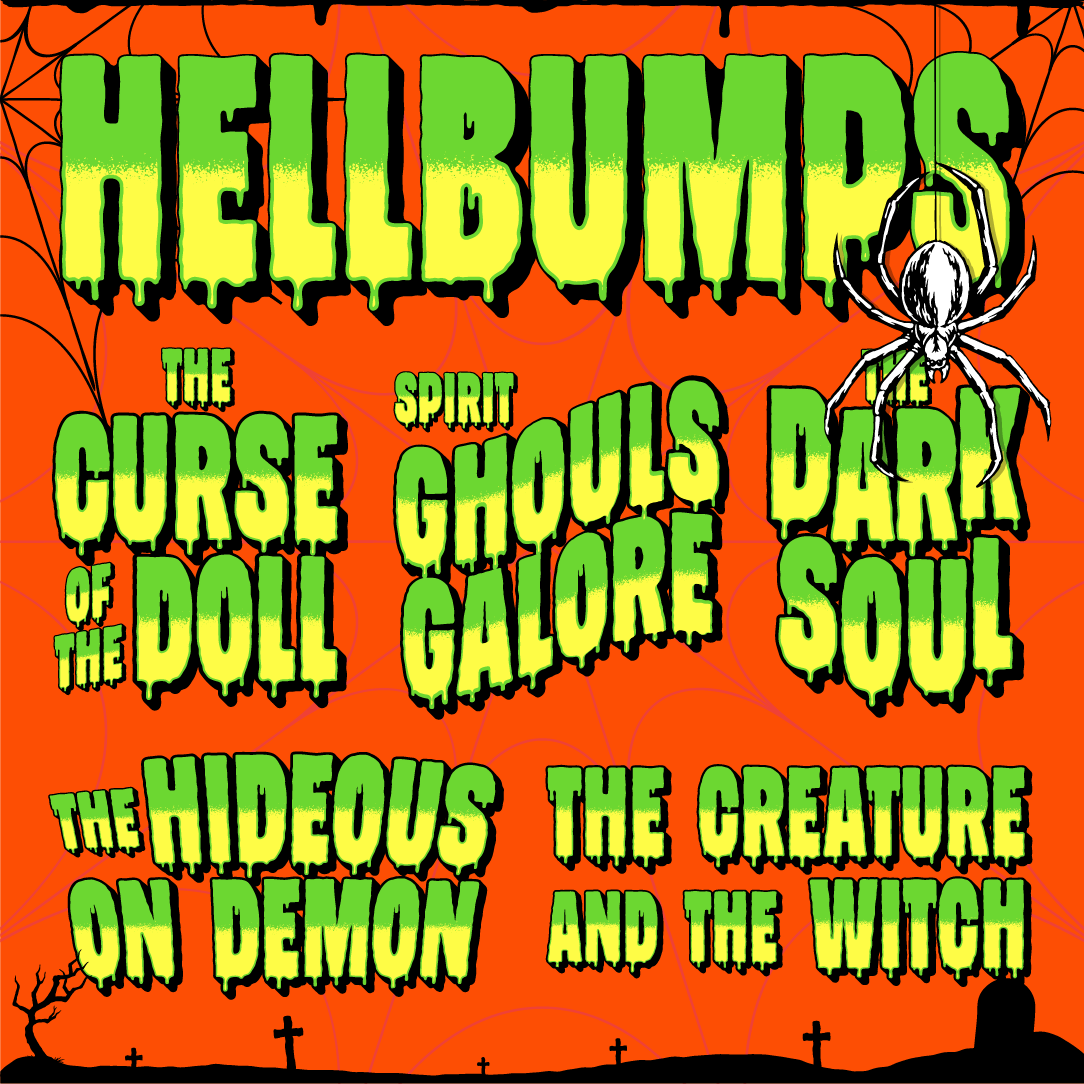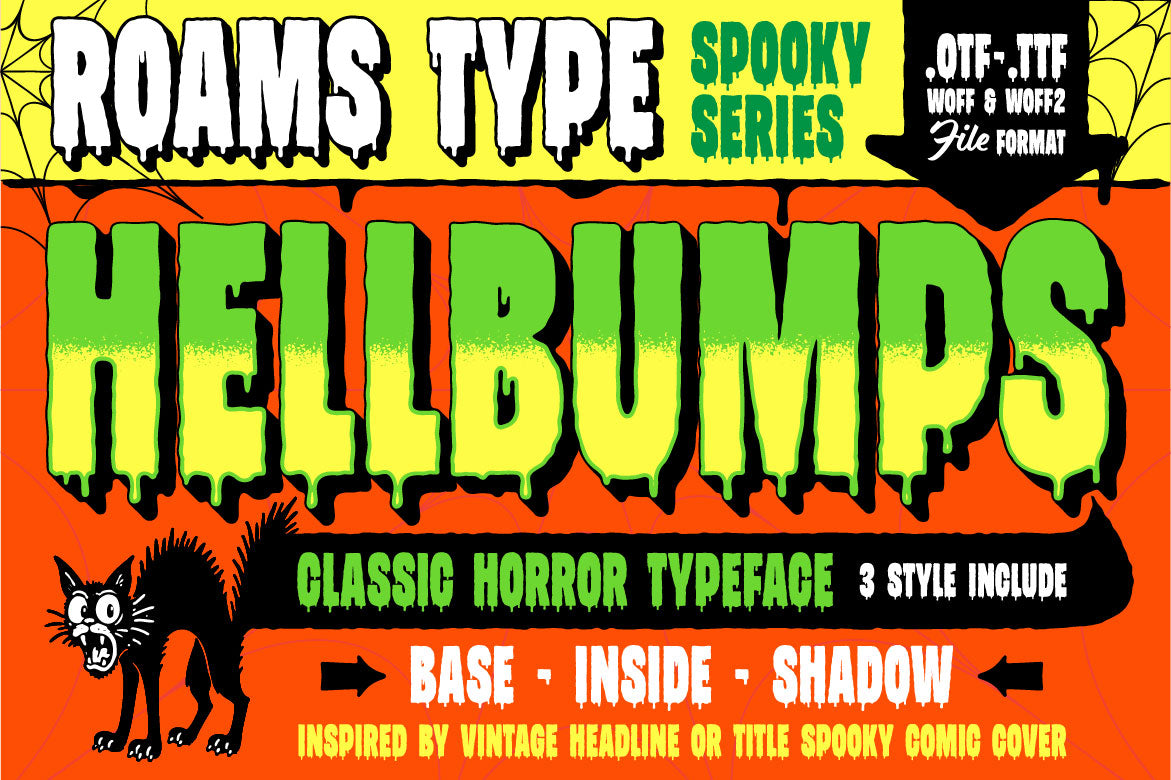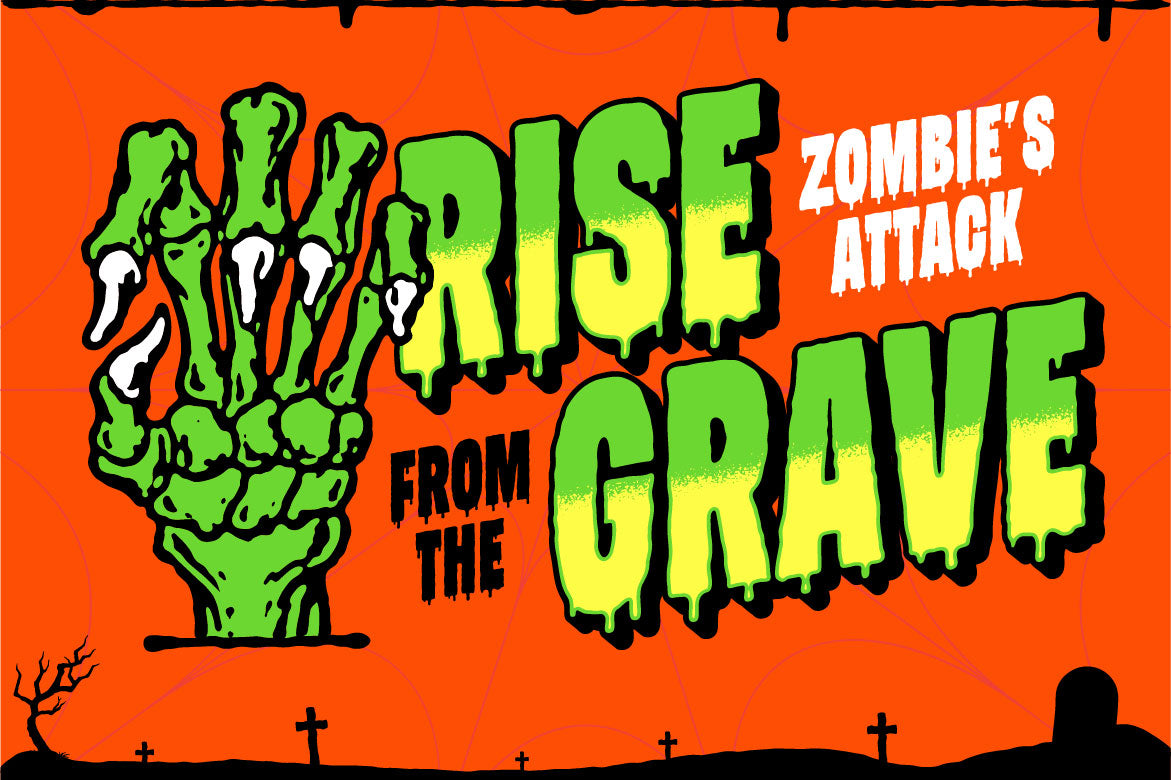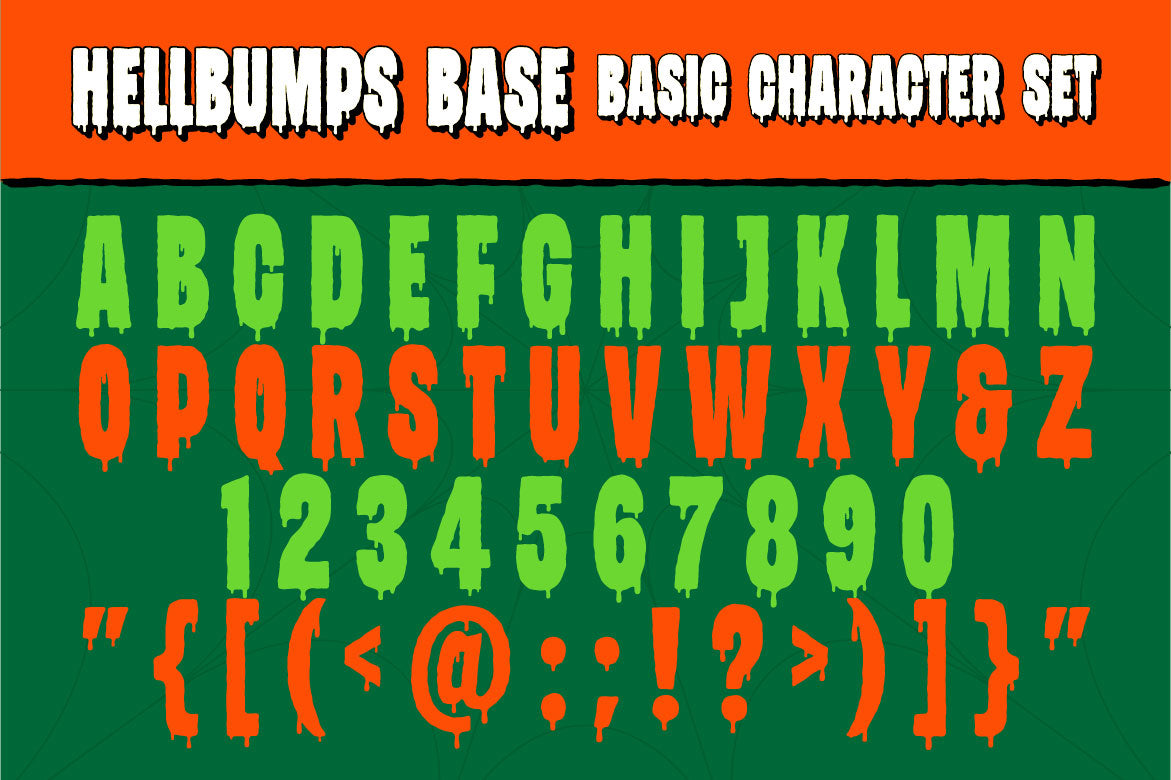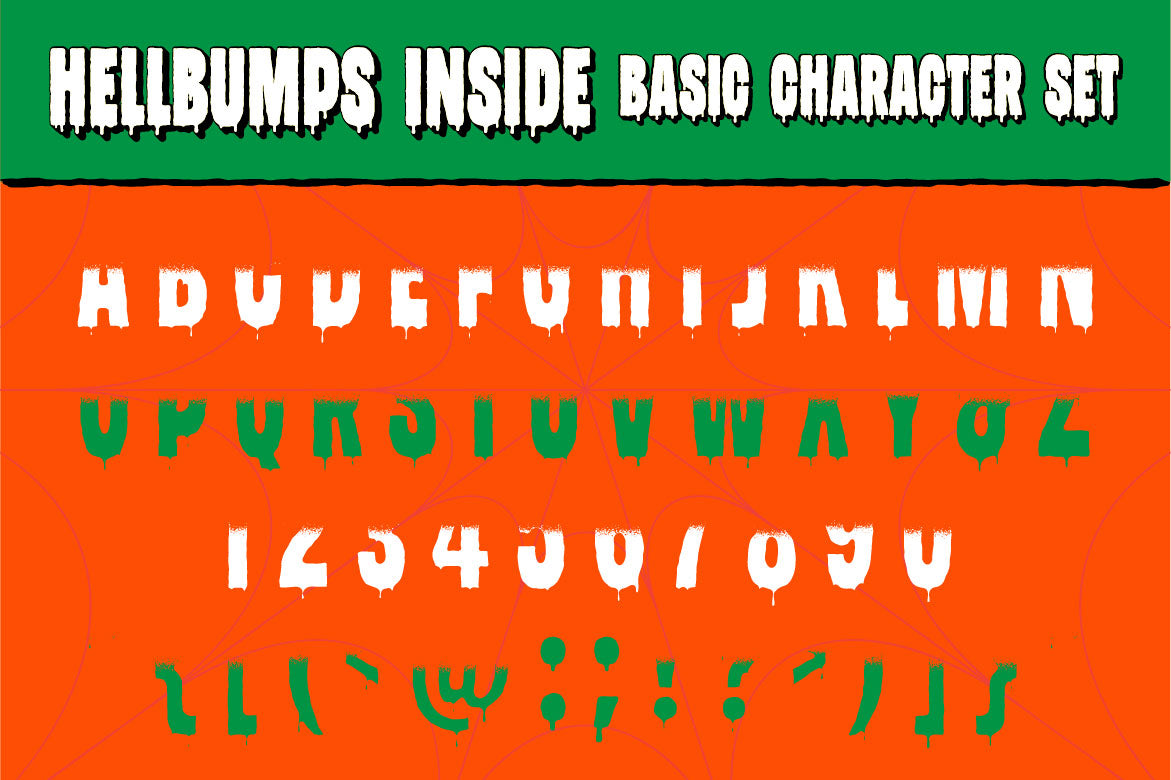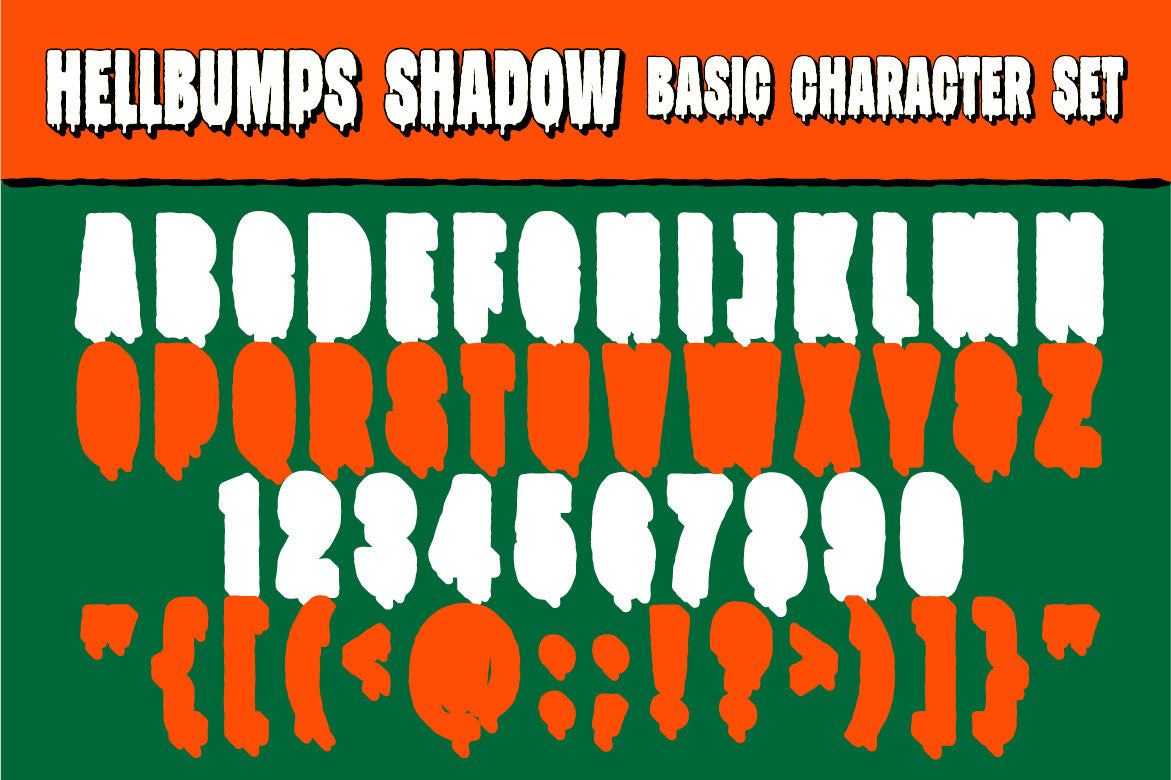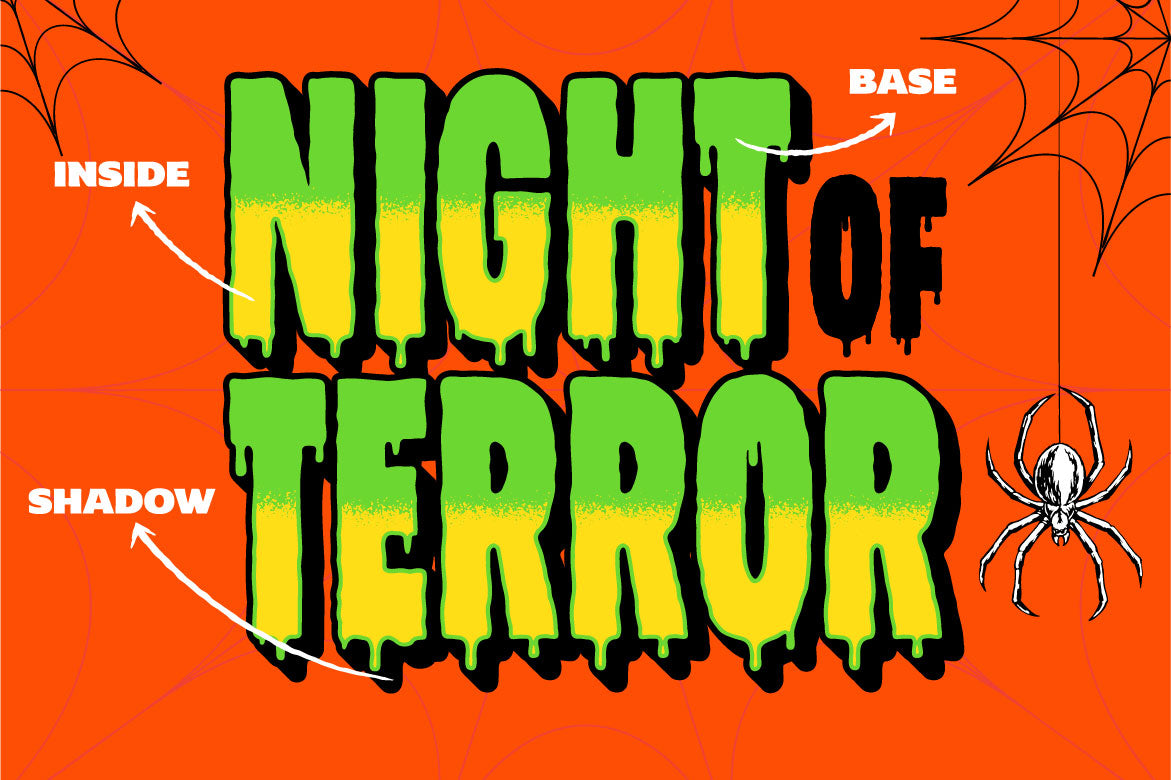
Hellbumps - Classic Horror Typeface
Hellbumps is a spooky horror display font inspired by vintage monster movie posters, retro Halloween comics, and classic creepy headline typography. Featuring dripping slime details, bold chunky shapes, and rough handcrafted edges, this typeface delivers a terrifying yet fun atmosphere perfect for horror-themed designs.
Designed with strong visual impact, Hellbumps works perfectly for posters, Halloween branding.
Hellbumps Base | Inside | Shadow
Uppercase Characters
Easy to Use, Perfect for Layered Typography.
Hellbumps is a horror display typeface with bold chunky shapes, dripping slime details, and rough handcrafted edges, inspired by vintage monster movie posters and retro Halloween comics. It includes three layered styles (Base, Inside, Shadow) with uppercase characters, available in OTF, TTF, WOFF, and WOFF2 formats.